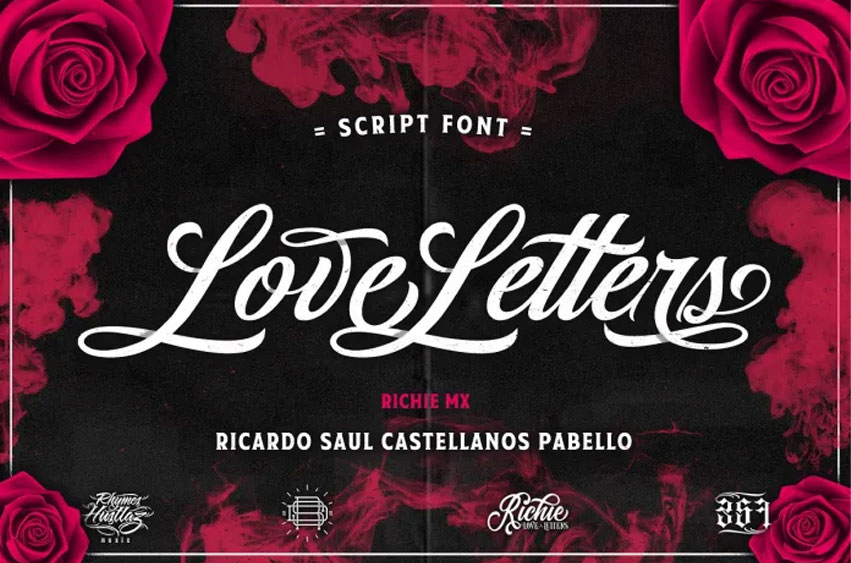
Love Letters Font
Love Letters Font is a handwritten calligraphy script font with a clear style and good flow This font is great for your next creative project. Love Letters Font – is a calligraphy script font created and shared by Richie Mx. Love Letters Script Font is a typeface inspired by the Script Lettering style, in the design studio “Riders on the Storm Design”.
This font is suitable to use as a logotype, product designs, label, watermark, social media posts, apparel, invitation, signboard, sport club, motor/car community, special events or anything that need handwriting taste.